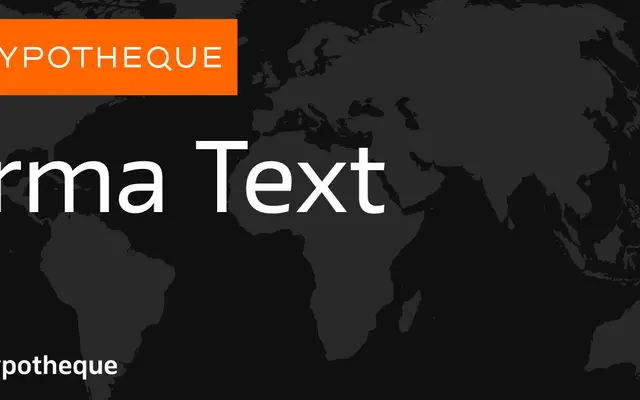
Irma Text
A large text-focused sans-serif system from Typotheque with nine weights, italics and five subfamilies including slab, rounded and narrow variants.
The Irma system pairs text and display families across upright and italic cuts, with nine weights from Thin to Black in each branch. Subfamilies extend the system into slab, rounded and narrow directions, all sharing a common structure that allows mixing across a single publication. A variable font is also available, making Irma a credibly thorough choice for complex editorial and publishing environments.
Irma Text is a humanist sans-serif designed for running text, with a large family system that includes slab, rounded and narrow variants, suggesting origins in humanist tradition with functional versatility across reading environments.